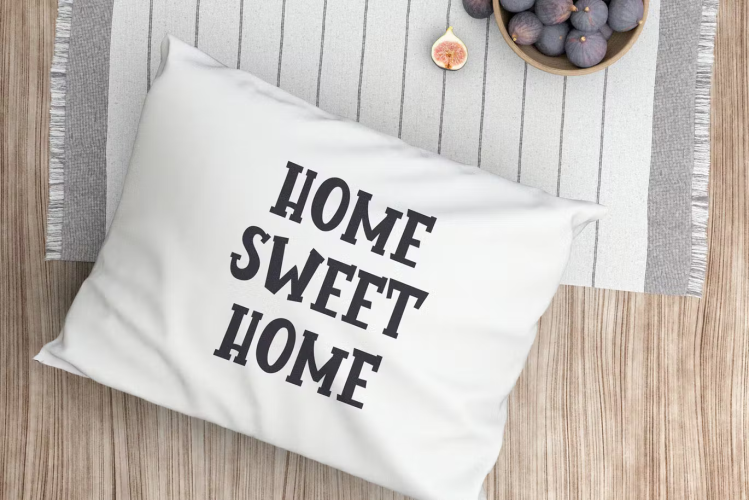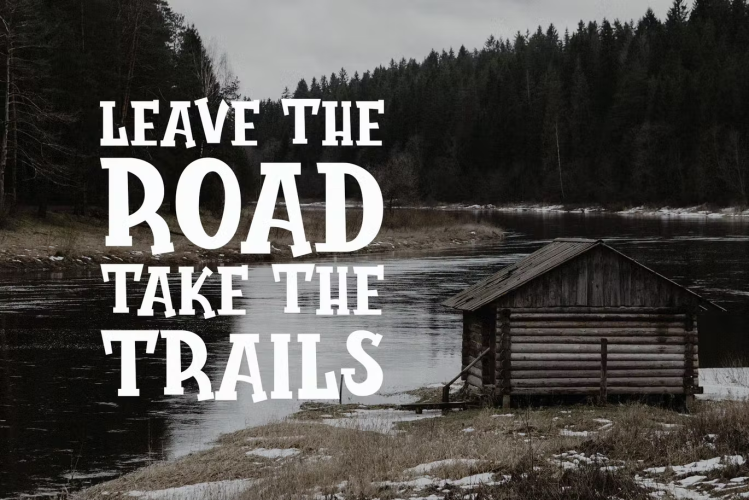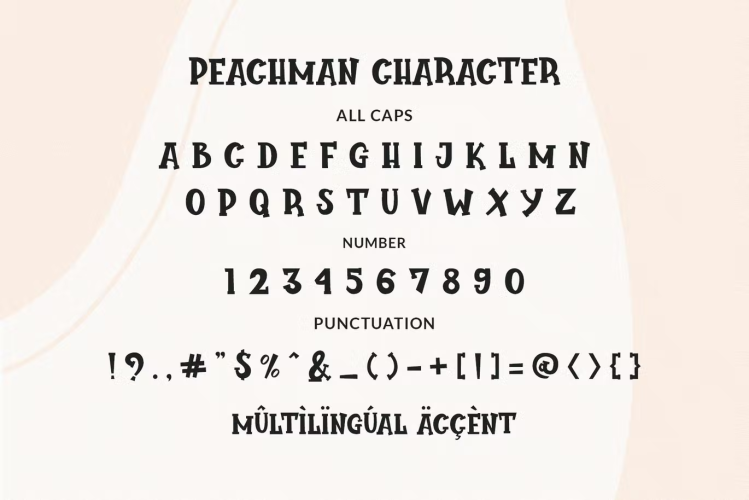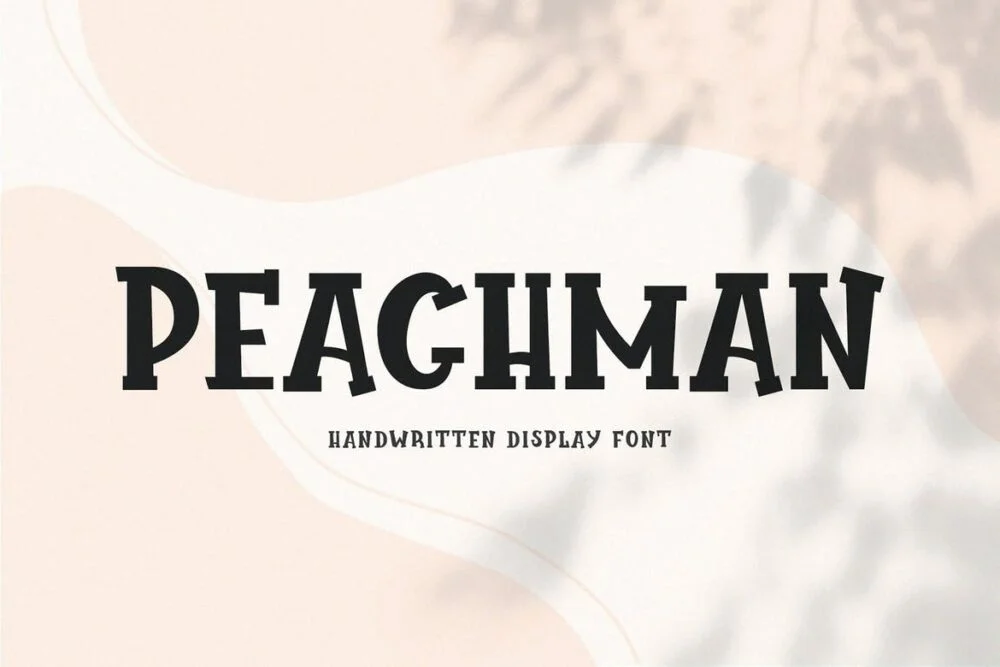
Peachman Font
Peachman Font is a cute, funny, sweet handwritten font. Clean and soft, this font is the perfect fit for all of your crafty DIY projects, cricut, logos, branding, social…
Peachman Font is a cute, funny, sweet handwritten font. Clean and soft, this font is the perfect fit for all of your crafty DIY projects, cricut, logos, branding, social media, etc.
Where Peachman Font works best
Headlines and titles
Peachman Font has enough character to carry a headline on its own; set it large and keep the supporting text plain.
Brand and product names
Short strings are where this typeface is strongest — a name, a label, a cover line.
Social and video graphics
Set Peachman Font over a flat colour or a quiet photograph so the letterforms stay the focus.
What kind of work does Peachman Font suit?
It sits in the Handwriting Fonts group and reads as branding, clean, handwriting fonts, handwritten. That makes it a candidate wherever those qualities help: headings, packaging, social graphics and brand work. Set it at the size you plan to use before deciding.